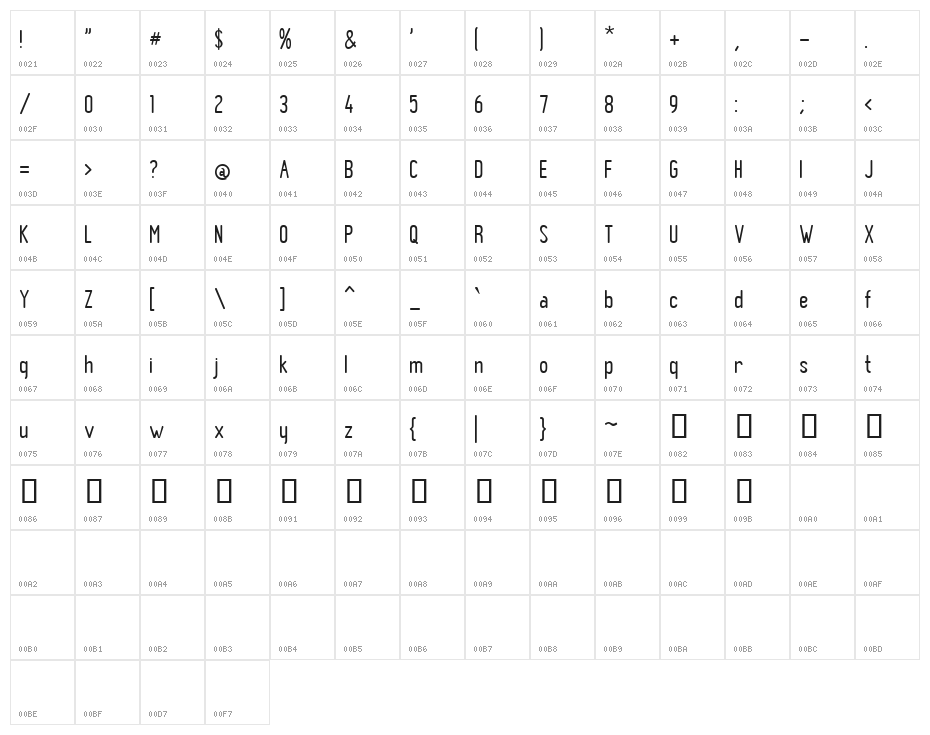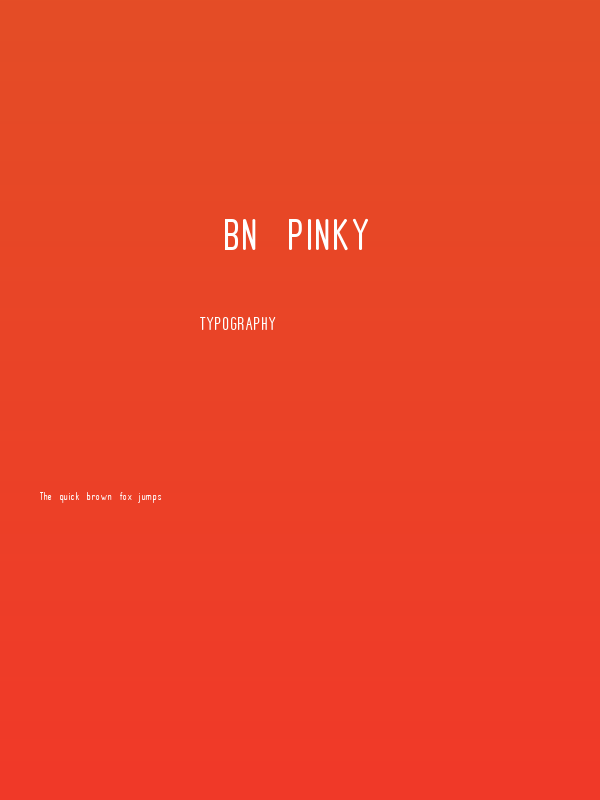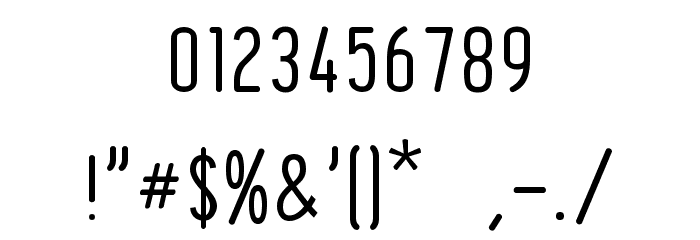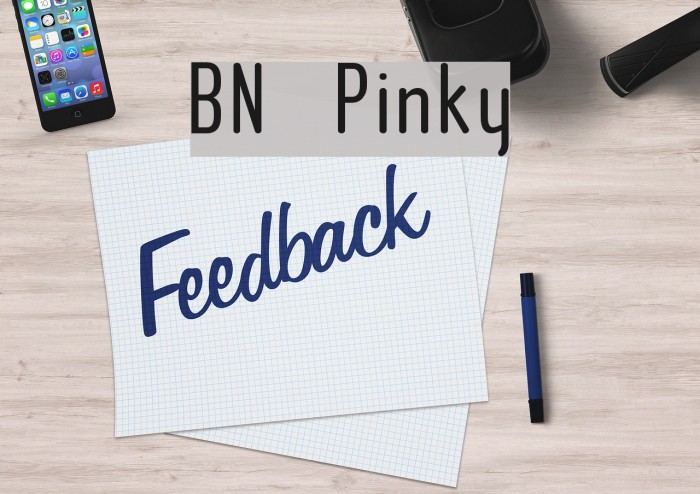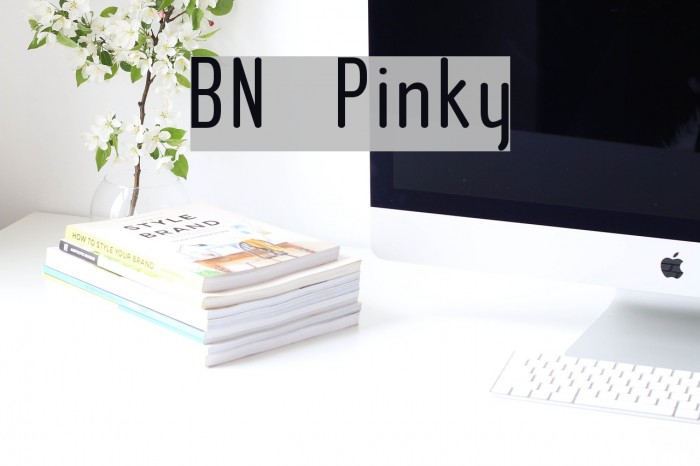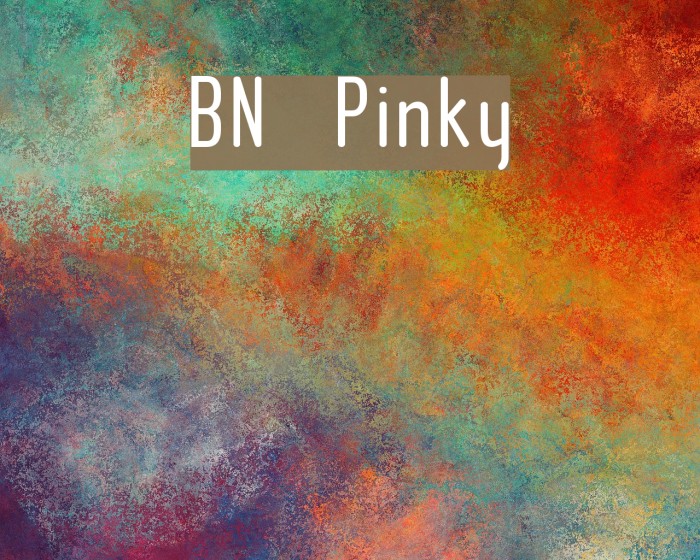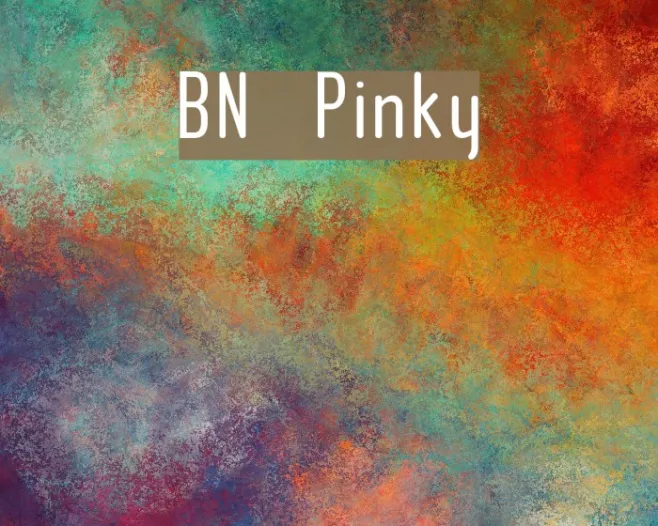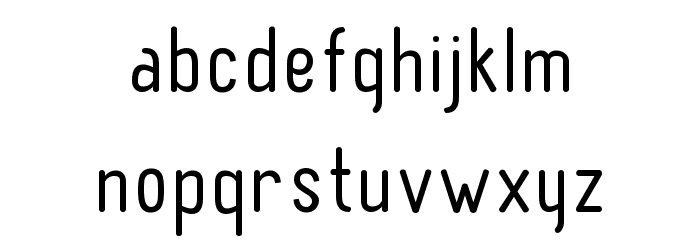
BN Pinky Font
BN Pinky Description
This font features a clean and modern sans-serif style with rounded edges that give it a friendly and approachable appearance. The characters are evenly spaced, providing a balanced and harmonious look. The uppercase letters are slightly taller than the lowercase, maintaining a consistent width throughout. Numbers and special characters are designed to match the overall aesthetic, ensuring a cohesive appearance across all text. The simplicity of the design makes it versatile for various applications, while the rounded edges add a touch of softness and warmth.
| Proposed Projects | Ideal for branding, web design, children's books, and casual print materials. |